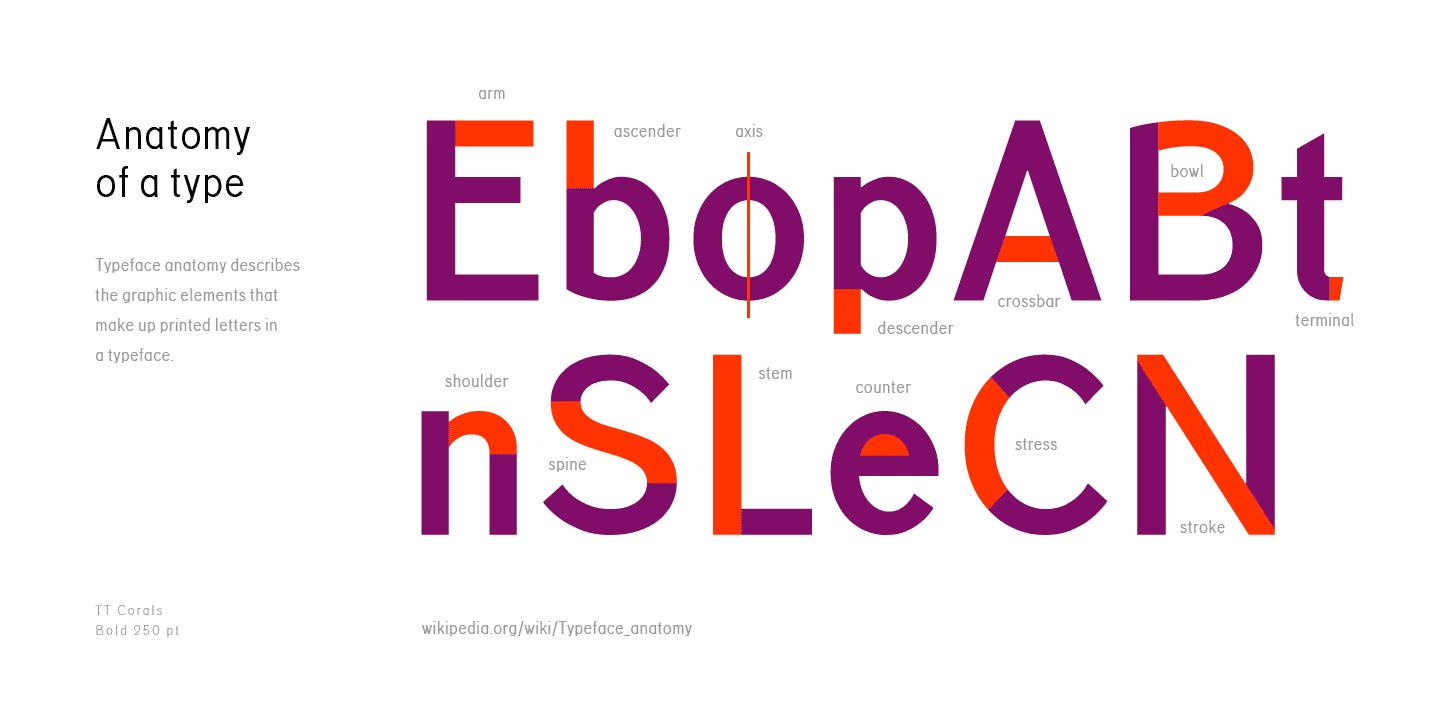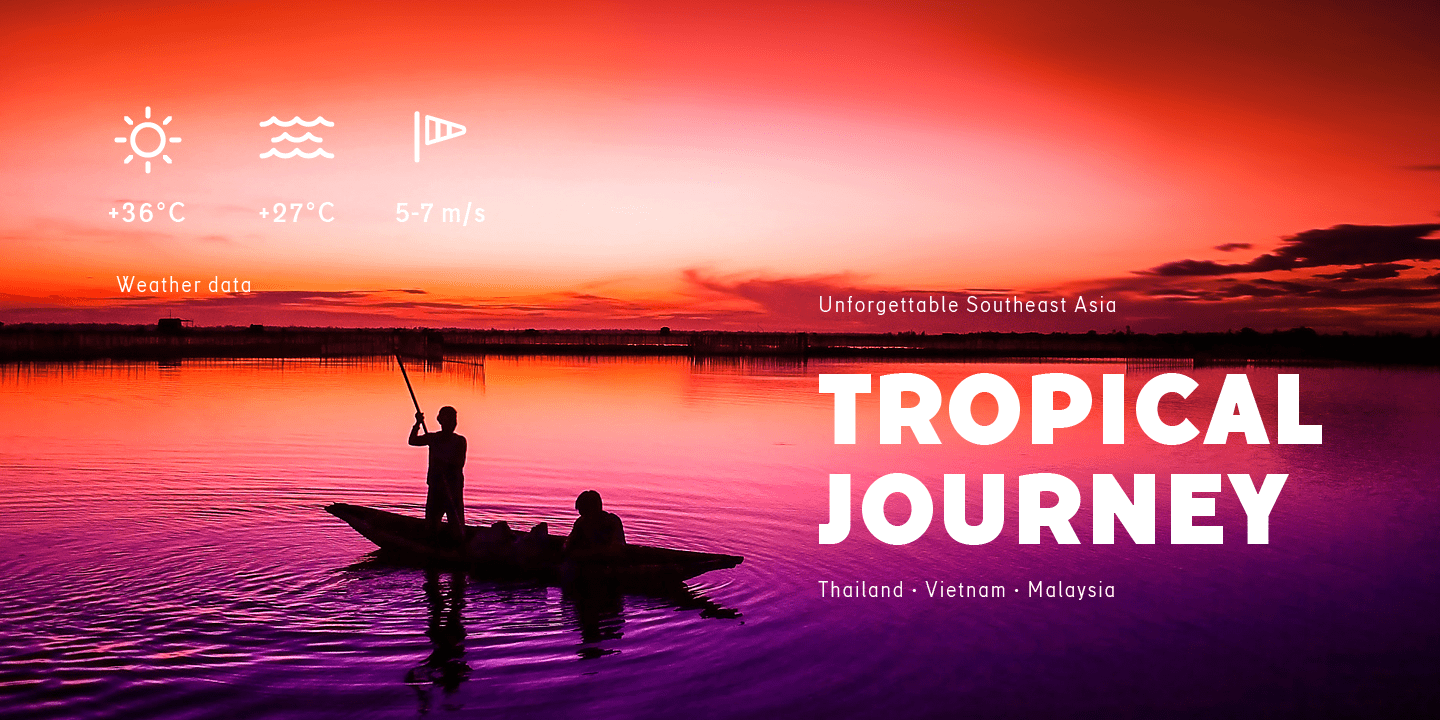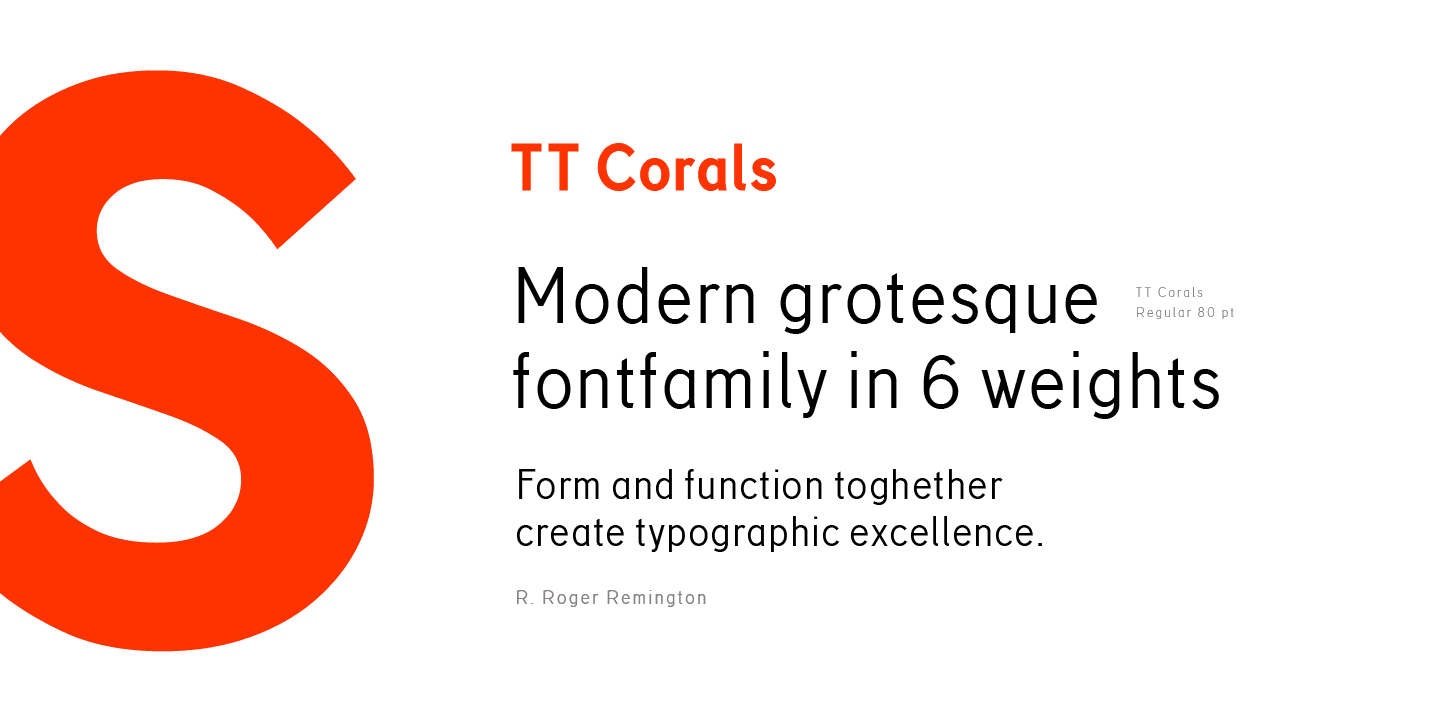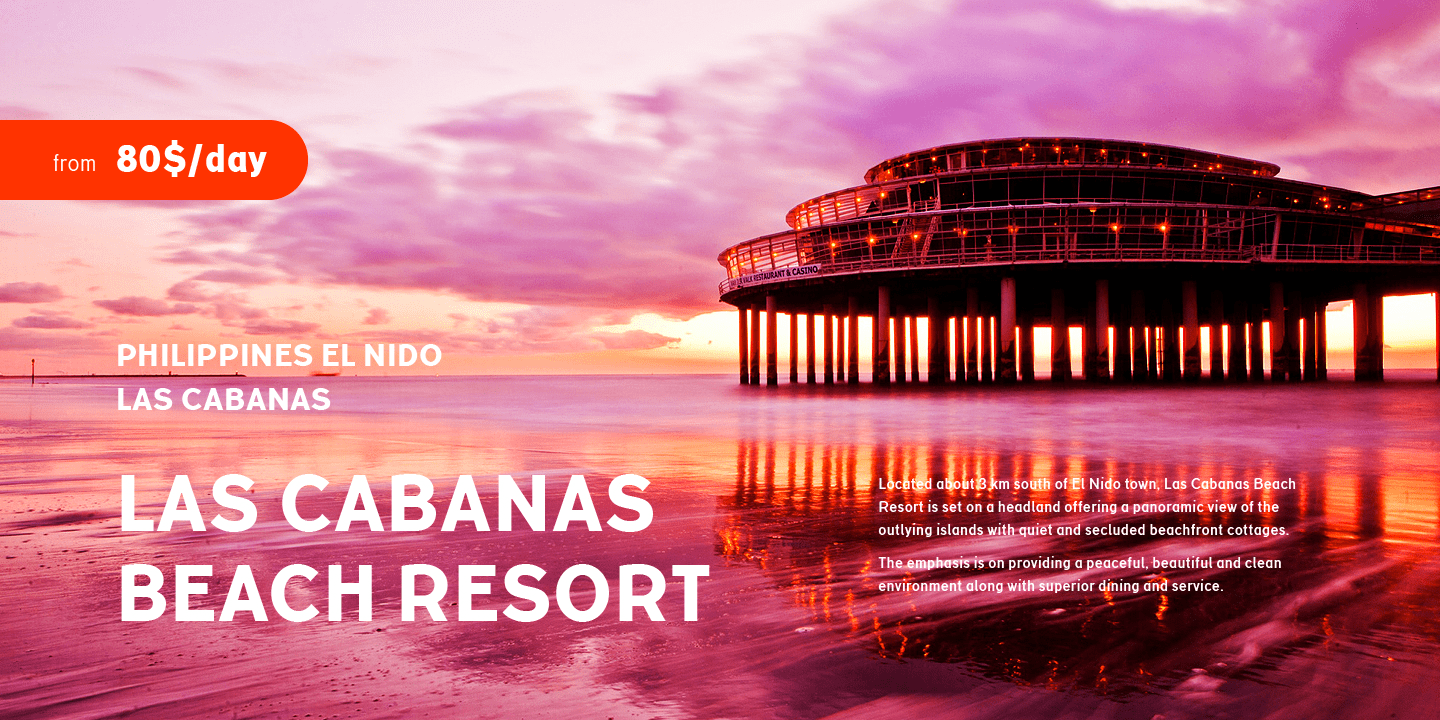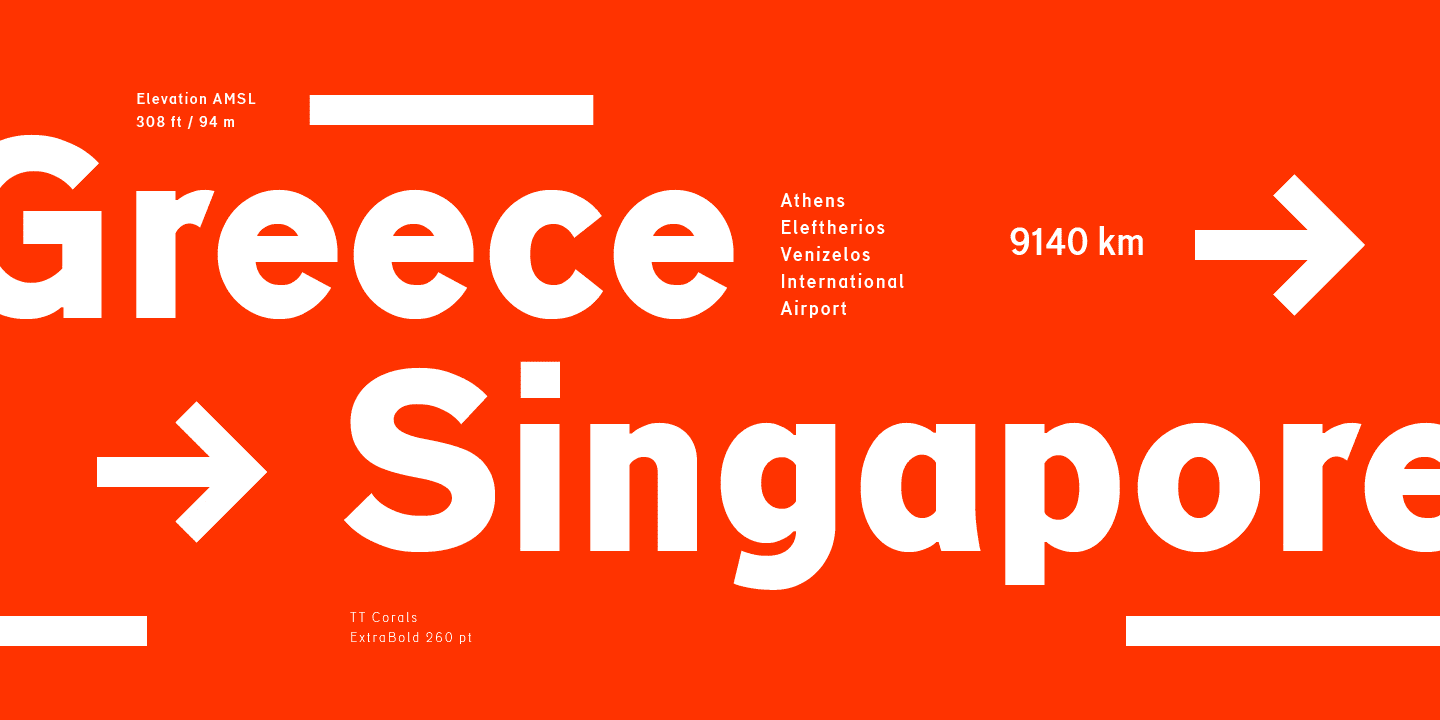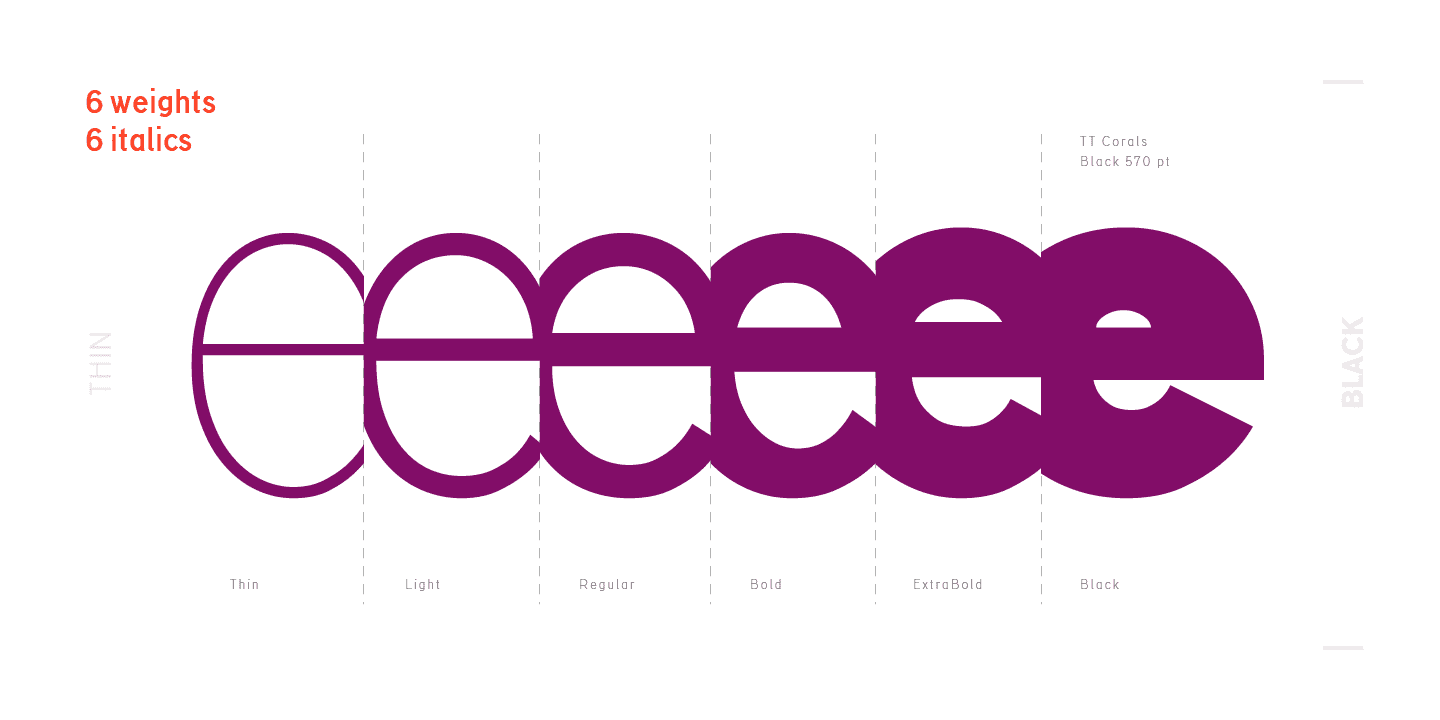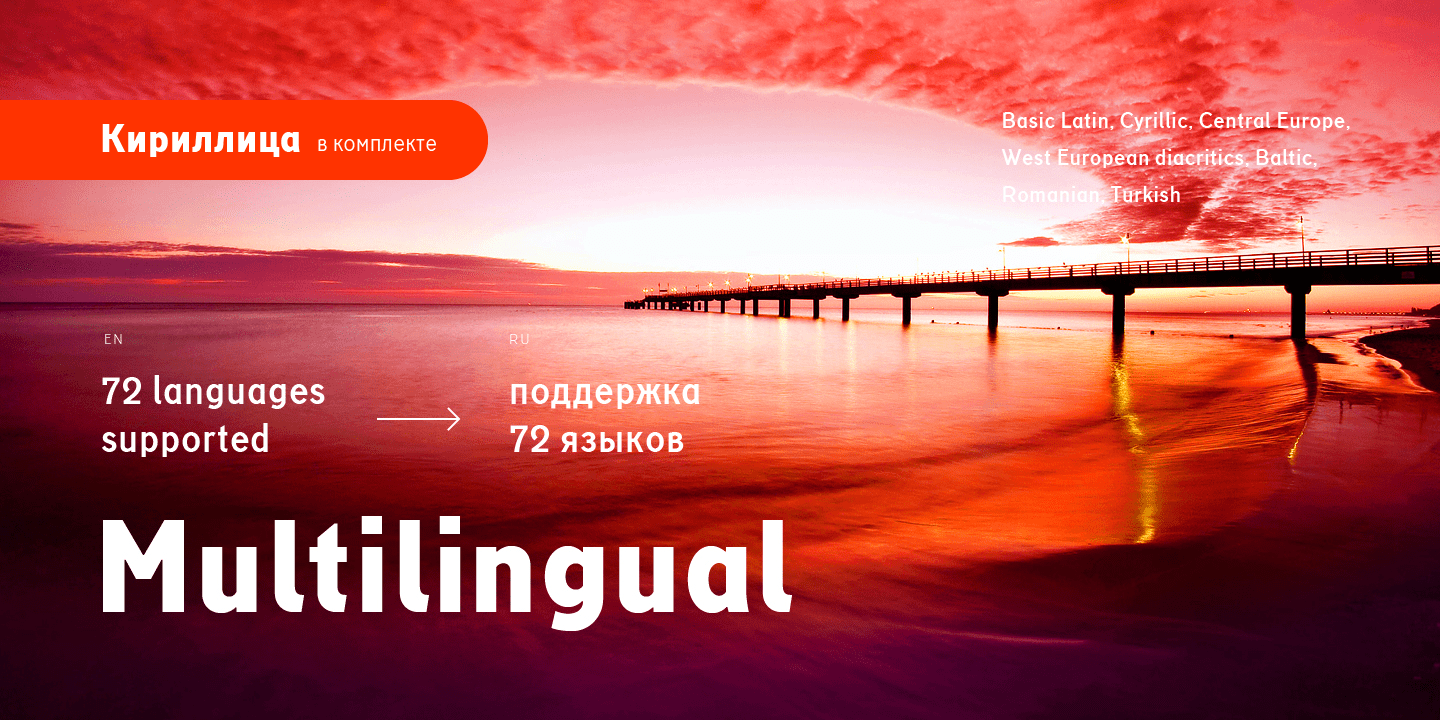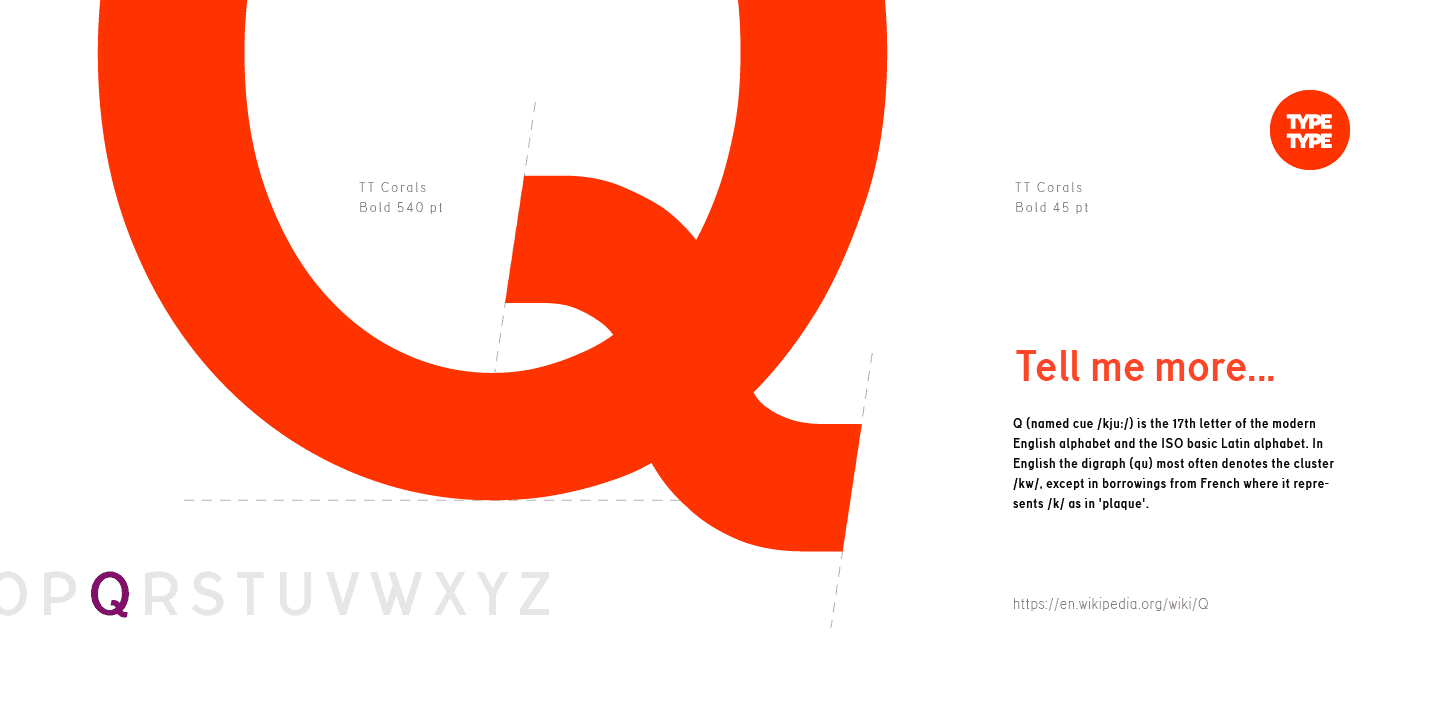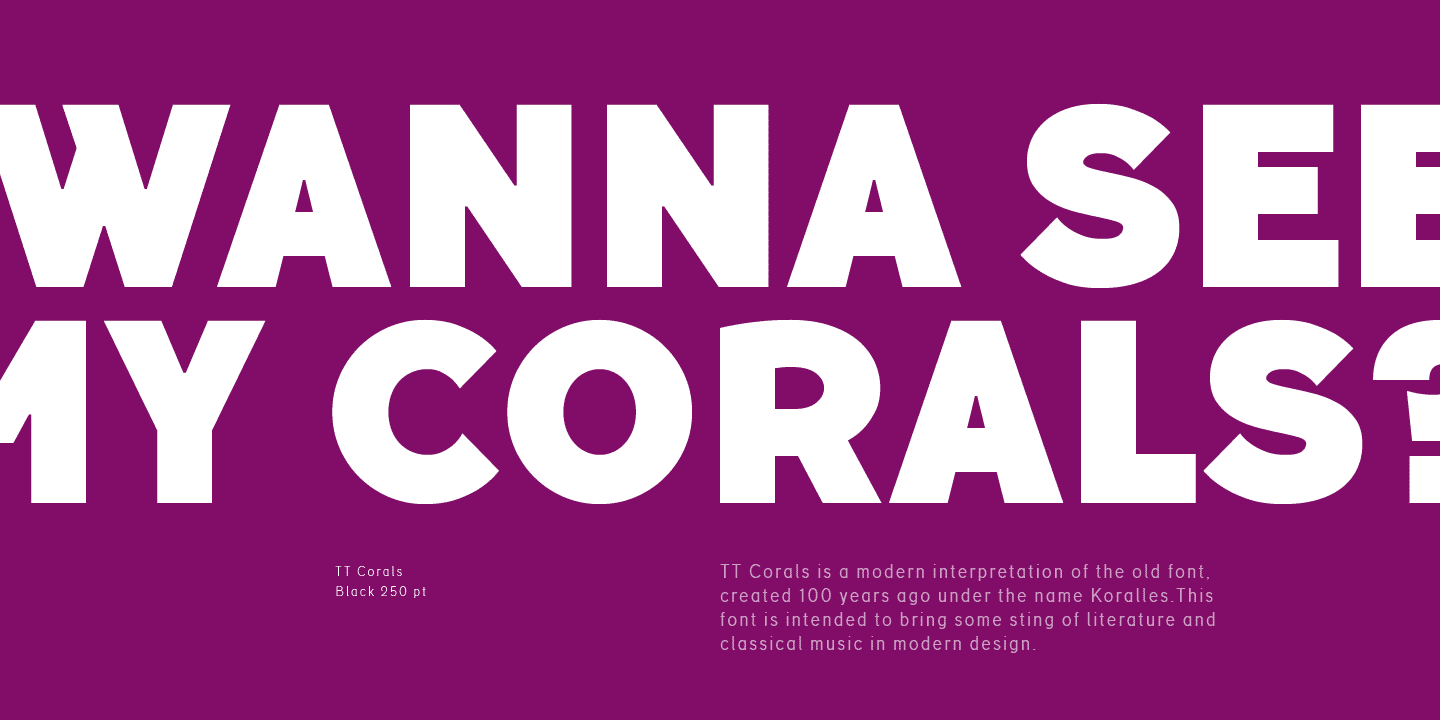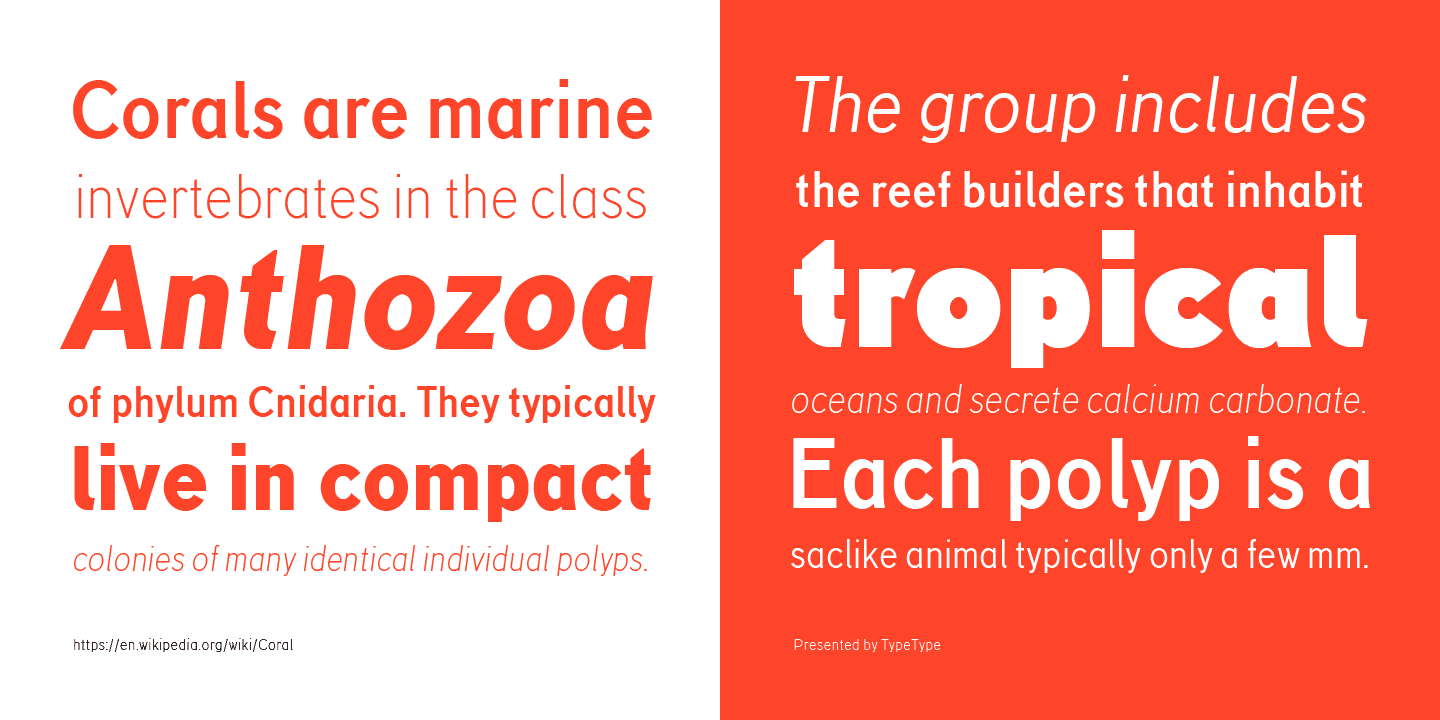
The distinctive smoothness of the lines and separate elements allows using TT Corals for different design areas. For instance, it will perfectly fit for the topics of classical literature or music, and any other diverse creative areas of humans' activities. TT Corals inspires with its freshness and novelty and gives new ideas for your creativity and art.